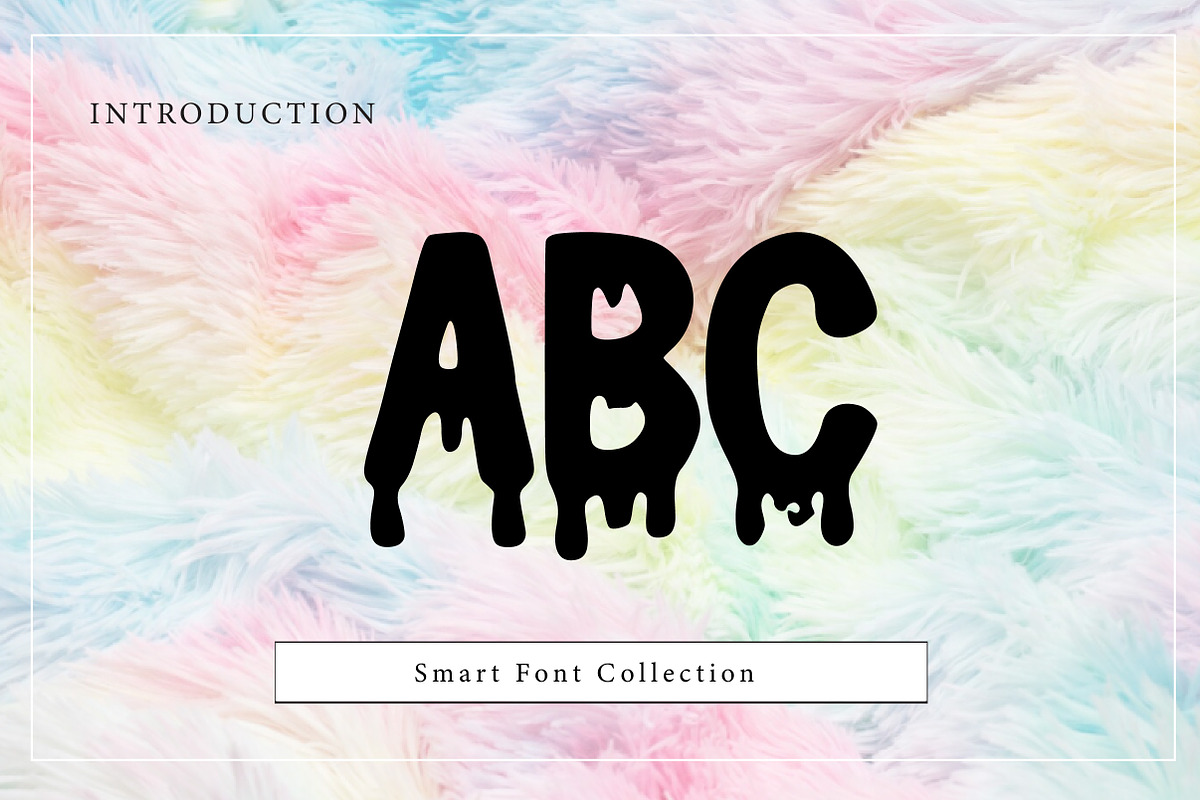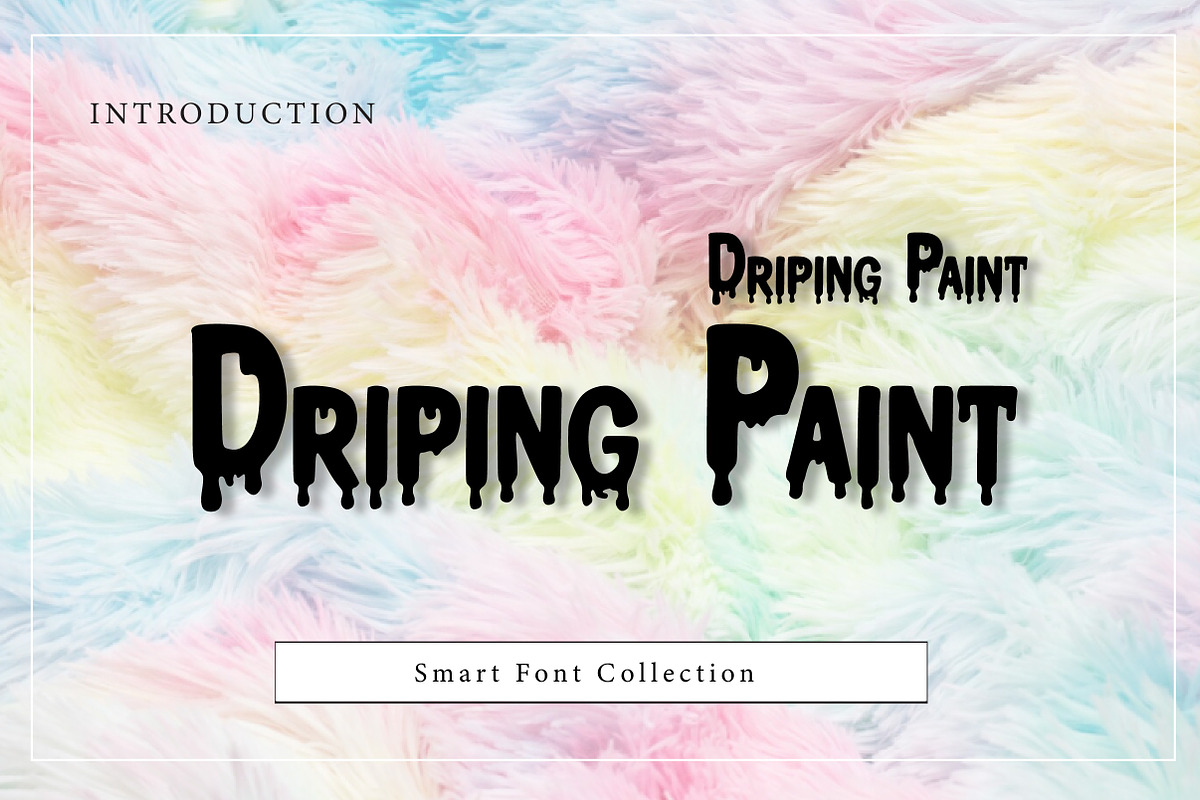
Driping Paint
Driping Paint is a bold dripping display font inspired by wet paint, melting ink, and horror-style typography. Featuring thick letterforms with realistic dripping effects, this font is perfect for Halloween posters, scary titles, graffiti designs, movie covers, game graphics, party flyers, stickers, and social media content. Driping Paint adds a dramatic, messy, and spooky vibe to any design, making it ideal for creative projects that need a strong dripping paint aesthetic.